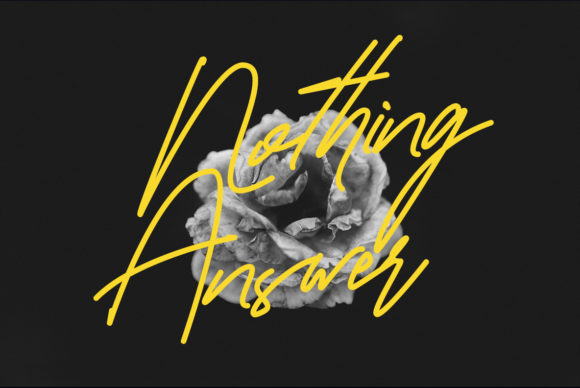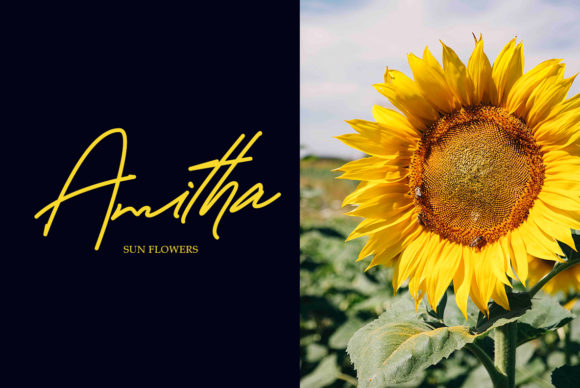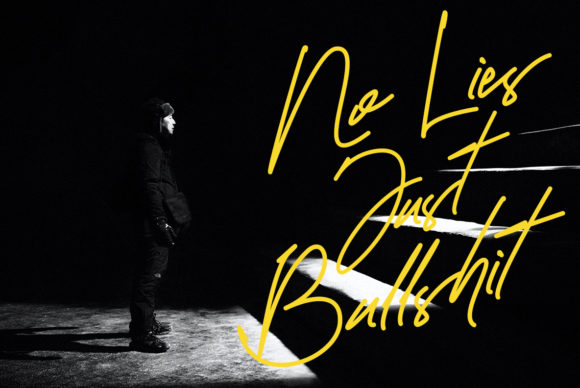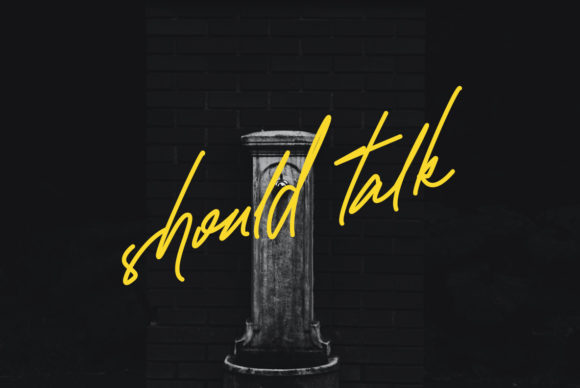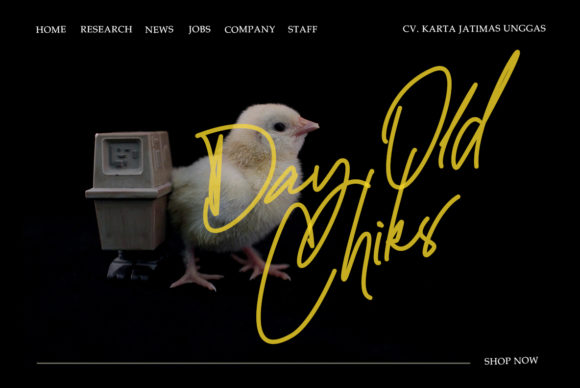
Introducing Amighost Font: The Elegant Handwritten Font with a Nostalgic Feel
In the world of typography, fonts play a crucial role in conveying the tone and personality of a design. For designers and crafters looking for a font that exudes elegance and nostalgia, Amighost Font is an excellent choice. This beautiful handwritten font is perfect for adding a personal touch to various designs, from wedding invitations to business cards.
What is Amighost Font?
Amighost Font is an elegant handwritten font that boasts a nostalgic feel. Its unique and flowing script makes it an ideal choice for designs that require a touch of sophistication and whimsy. The font’s classic and timeless look is reminiscent of traditional handwritten scripts, making it perfect for designs that aim to evoke a sense of nostalgia and romance.
Characteristics of Amighost Font
Amighost Font has several characteristics that make it a standout choice for designers and crafters. Some of its notable features include:
• Elegant and refined script: Amighost Font features a beautiful, flowing script that is both elegant and refined.
• Nostalgic feel: The font’s classic look and feel evoke a sense of nostalgia and romance, making it perfect for designs that aim to capture these emotions.
• Handwritten touch: Amighost Font has a distinctly handwritten feel, making it ideal for designs that require a personal touch.
• Versatile: The font is versatile and can be used for a wide range of designs, from wedding invitations to business cards.
Use Cases for Amighost Font
Amighost Font is a versatile font that can be used for various design projects. Some of the most popular use cases include:
• Wedding Invitations: Amighost Font is perfect for wedding invitations, as it adds a touch of elegance and romance to the design.
• Thank You Cards: The font’s nostalgic feel makes it an excellent choice for thank you cards, which aim to convey gratitude and appreciation.
• Quotes: Amighost Font is ideal for quotes, as its elegant script makes the text stand out.
• Greeting Cards: The font’s handwritten touch makes it perfect for greeting cards, which aim to convey a personal message.
• Logos: Amighost Font can be used to create beautiful and elegant logos that reflect a brand’s personality.
• Business Cards: The font’s professional and refined look makes it an excellent choice for business cards.
Why Choose Amighost Font?
There are several reasons why designers and crafters should choose Amighost Font for their design projects. Some of the benefits of using this font include:
• Unique and distinctive: Amighost Font has a unique and distinctive look that sets it apart from other fonts.
• Elegant and refined: The font’s elegant and refined script makes it perfect for designs that require a touch of sophistication.
• Nostalgic feel: Amighost Font’s nostalgic feel evokes a sense of romance and whimsy, making it perfect for designs that aim to capture these emotions.
• Easy to read: The font is easy to read, making it perfect for designs that require a clear and legible script.
In conclusion, Amighost Font is an elegant handwritten font with a nostalgic feel that is perfect for designers and crafters looking to add a personal touch to their designs. Its unique and flowing script, classic look, and versatility make it an excellent choice for various design projects, from wedding invitations to business cards. With its elegant and refined script, nostalgic feel, and ease of readability, Amighost Font is a great addition to any designer’s font collection.